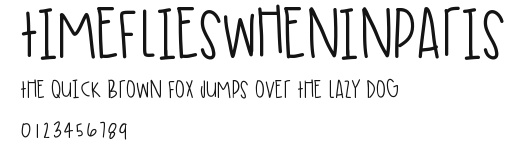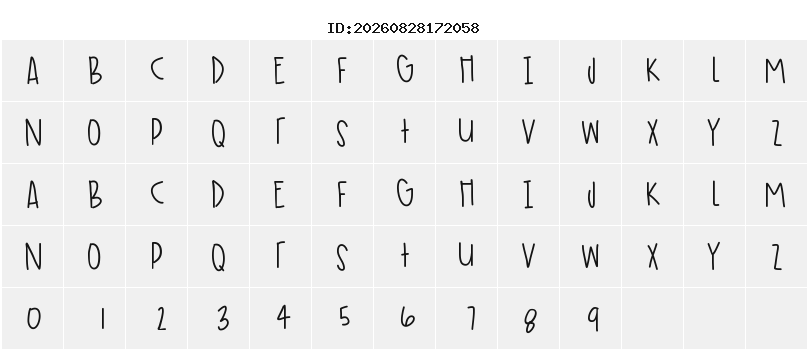
• Font Name: TimeFliesWhenInParis
• Full Font Name: TimeFliesWhenInParis
• PostScript Name: TimeFliesWhenInParis
About TimeFliesWhenInParis.ttf
TimeFliesWhenInParis.ttf is a modern, elegant sans-serif font designed for ultimate readability and visual harmony. Perfect for branding, headlines, web design, and print materials.